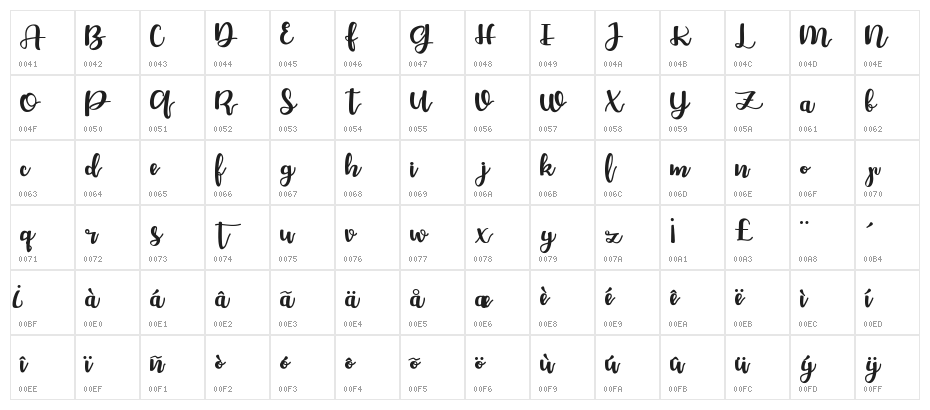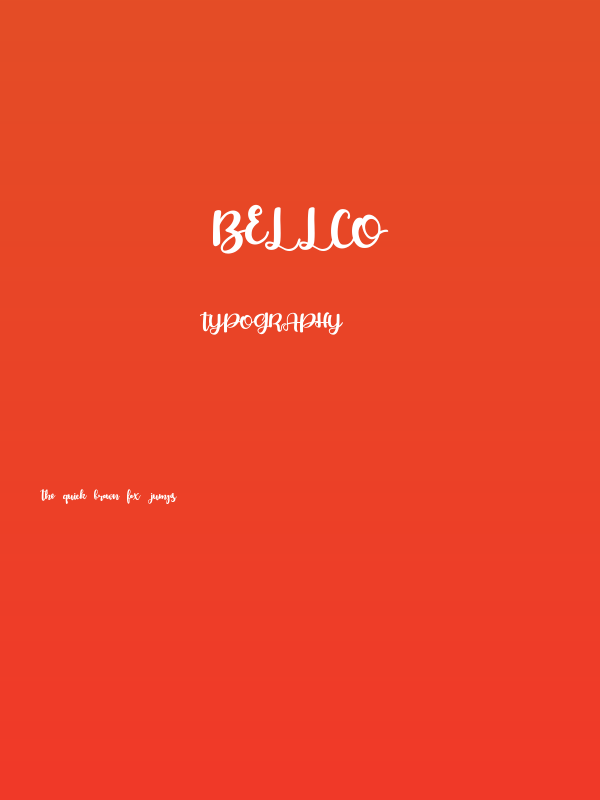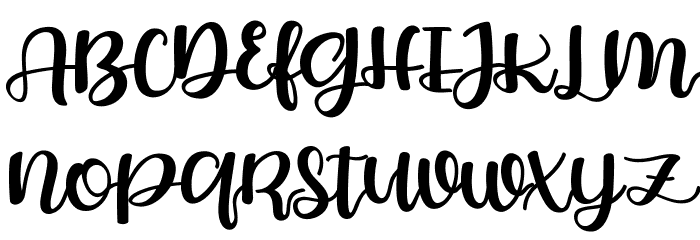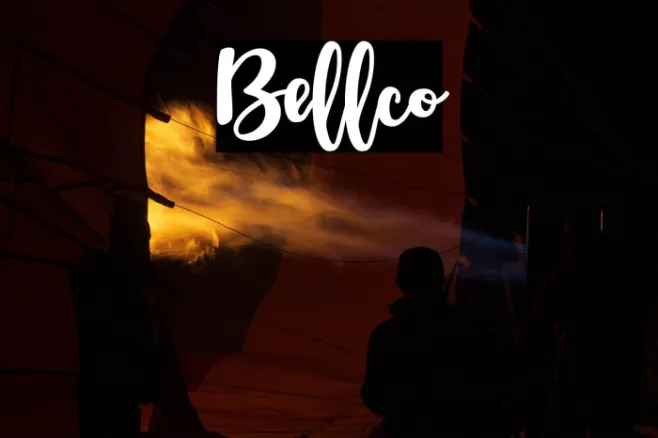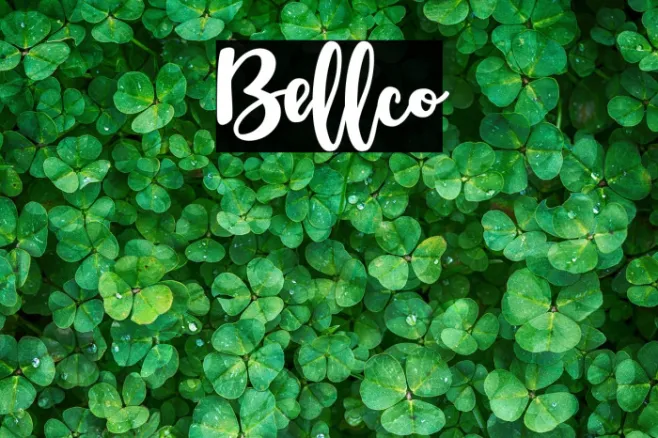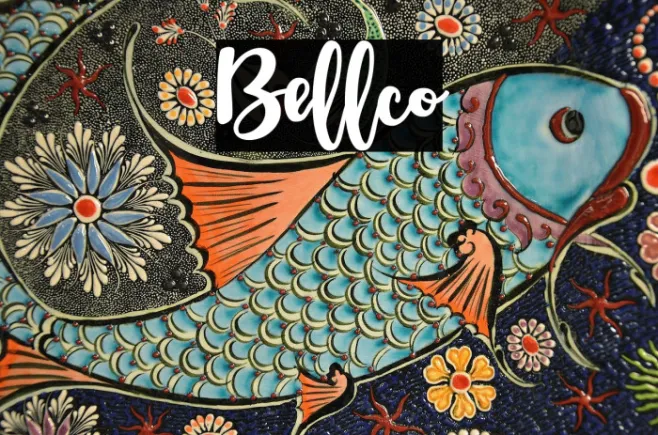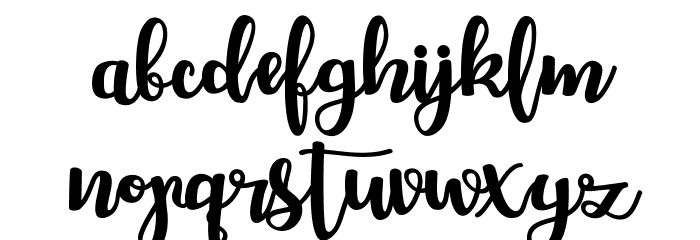
Bellco Font
Bellco Description
This font features a bold and flowing script style, characterized by its elegant and cursive letterforms. The uppercase and lowercase letters are designed with a consistent stroke width, giving it a harmonious and balanced appearance. The font exhibits a playful yet sophisticated look, with each character seamlessly connecting to the next, creating a fluid and dynamic text flow. The loops and swirls in the letters add a touch of whimsy, making it suitable for creative and artistic projects. Its bold presence ensures readability while maintaining a decorative flair, making it ideal for eye-catching designs.
| Proposed Projects | Ideal for wedding invitations, greeting cards, branding, and decorative headlines. |